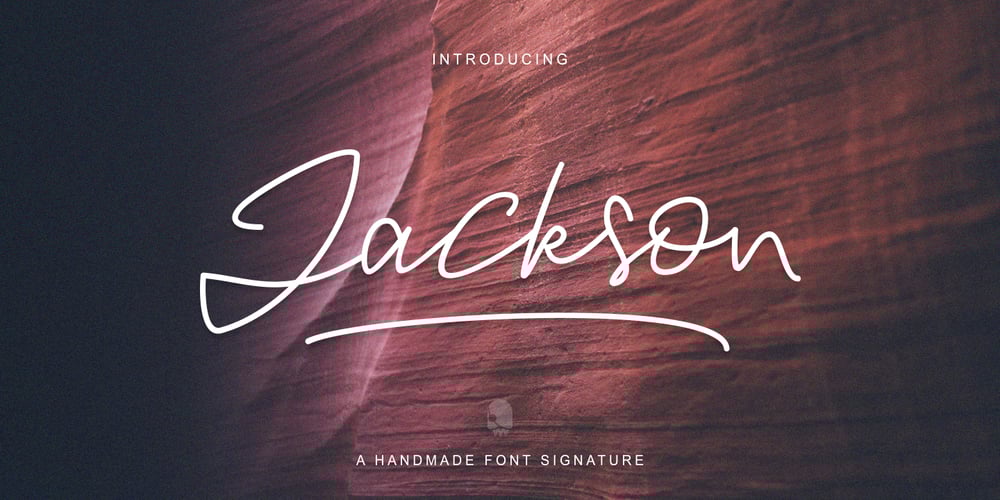
Jackson Script Font Family was designed by Ferdiansyah and published by ijemrockart. Jackson Script contains 1 styles and family package options. Jackson Script a new fresh & modern script with a handmade calligraphy style, decorative characters and a dancing baseline! So beautiful on invitations, greeting cards, branding materials, business cards, quotes, posters, and more! Jackson Script come with 347 glyphs. The alternative characters were divided into several Open Type features such as swash, stylistic sets, stylistic alternates, and ligatures. The Open Type features can be accessed by using Open Type savvy programs such as Adobe Illustrator, Adobe InDesign, Adobe Photoshop Corel Draw X version, And Microsoft Word. And this Font has given PUA unicode (specially coded fonts), so that all the alternate characters can easily be accessed in full by a craftsman or designer. If you have any question, do not hesitate to contact me by email ijemrealmad54@gmail.com Thanks and happy designing 🙂